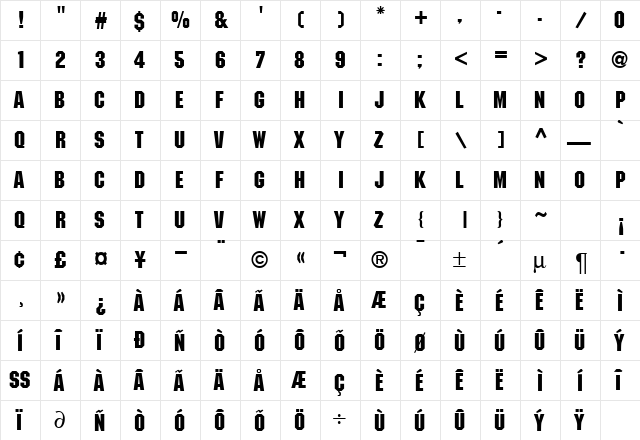
Mechanic Regular
Design Context for Mechanic Typeface
Mechanic takes a measured approach to typography — its balanced proportions and neutral character make it a reliable workhorse for both digital and print work.